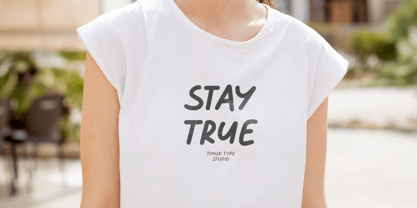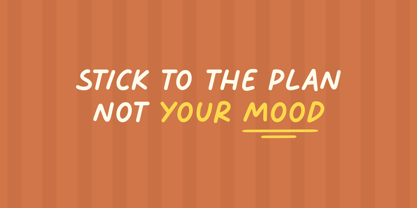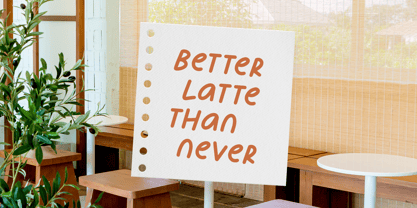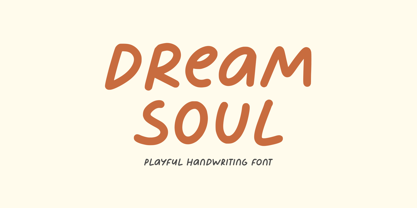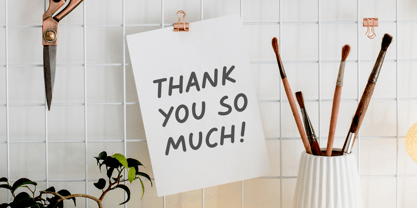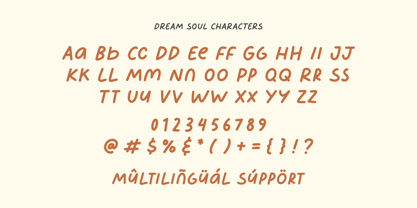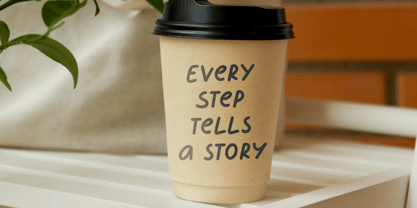
Dream Soul
by Timurtype
The Dream Soul Font Family was designed by Ibnu Nur Rahman and published by Timurtype. Dream Soul contains 1 styles. More about this family
Dream Soul is a Playful Handwriting Font
This font is a playful handwriting font with a charming, free spirited feel. Its smooth curves and casual strokes create a warm, friendly that’s perfect for invitations, social media graphics, branding, quotes, and creative projects. Dream Soul brings a fun and personal touch while still feeling stylish and easy to read.
Dream Soul Font also supports multilingualism
Designers: Ibnu Nur Rahman
Foundry: Timurtype